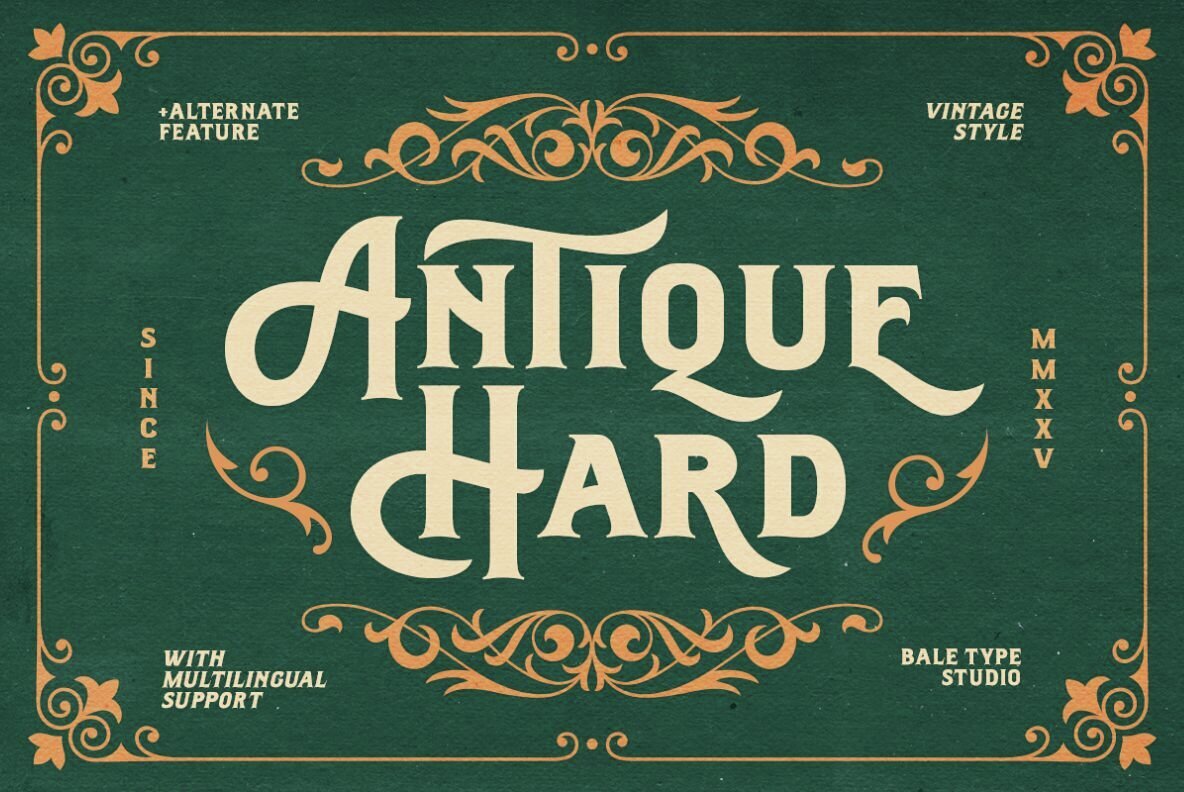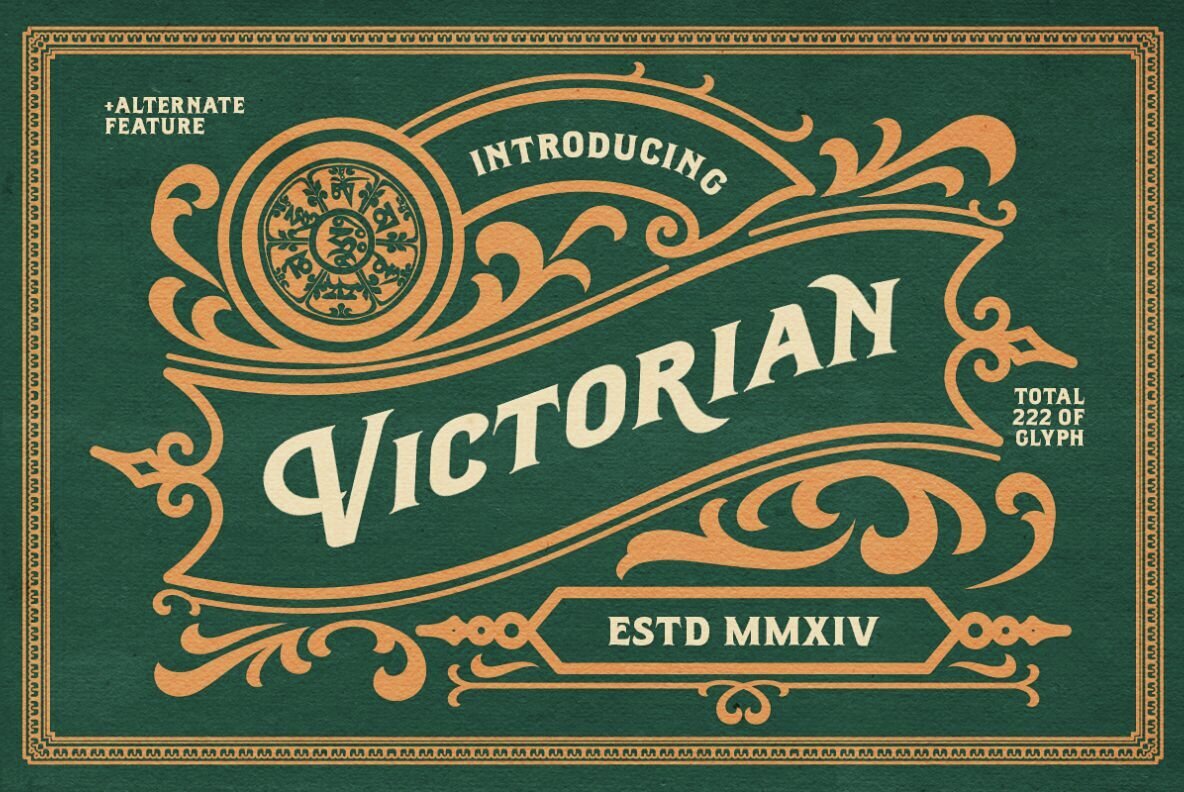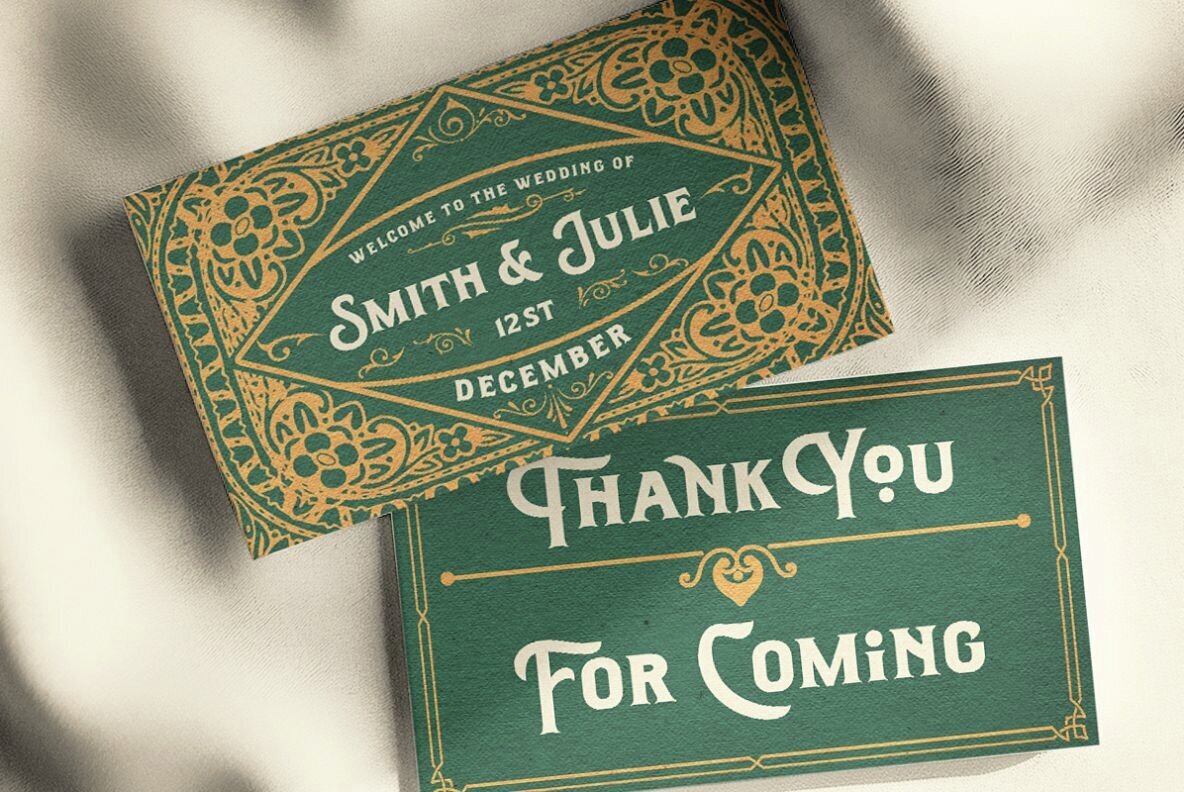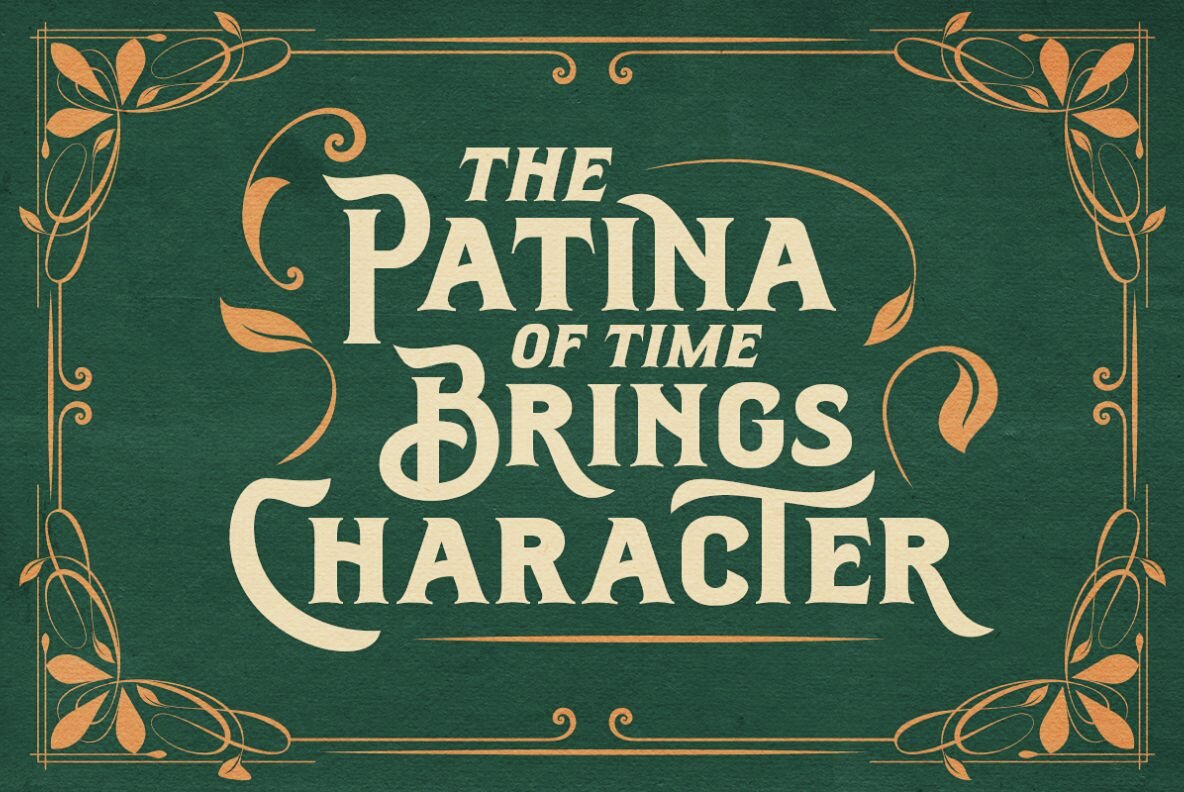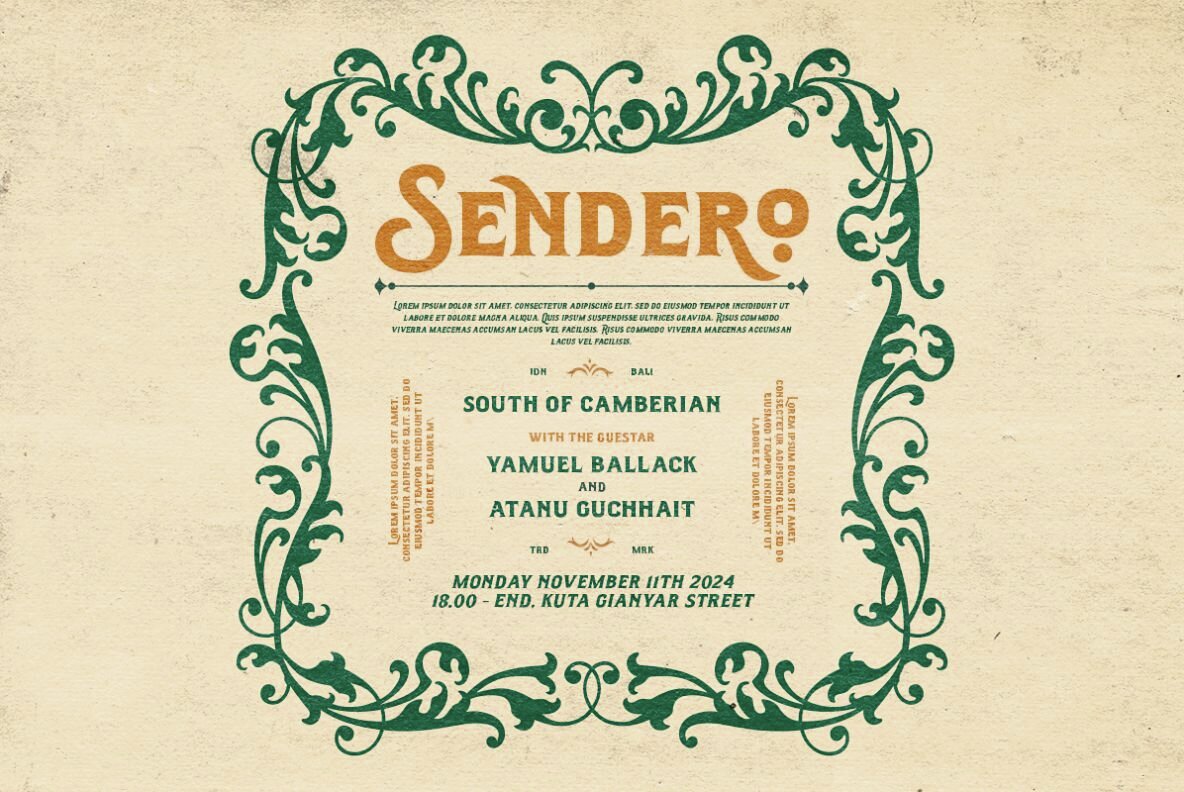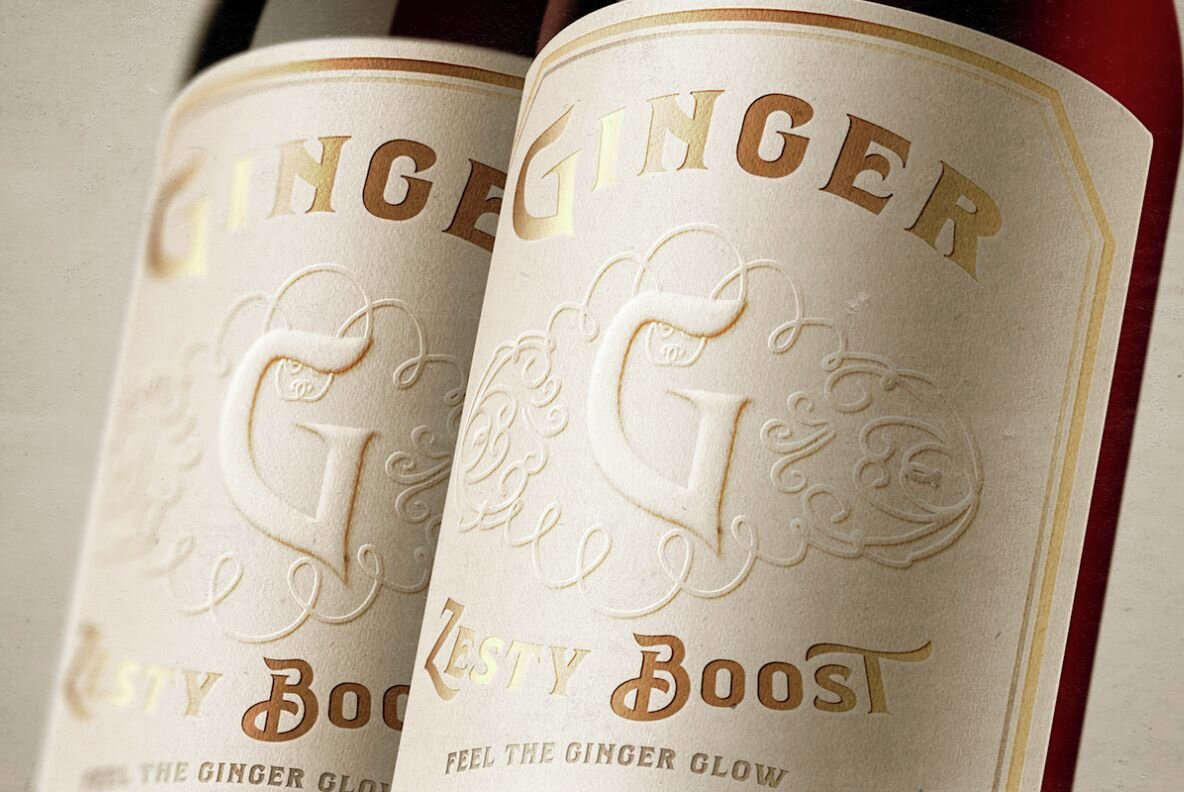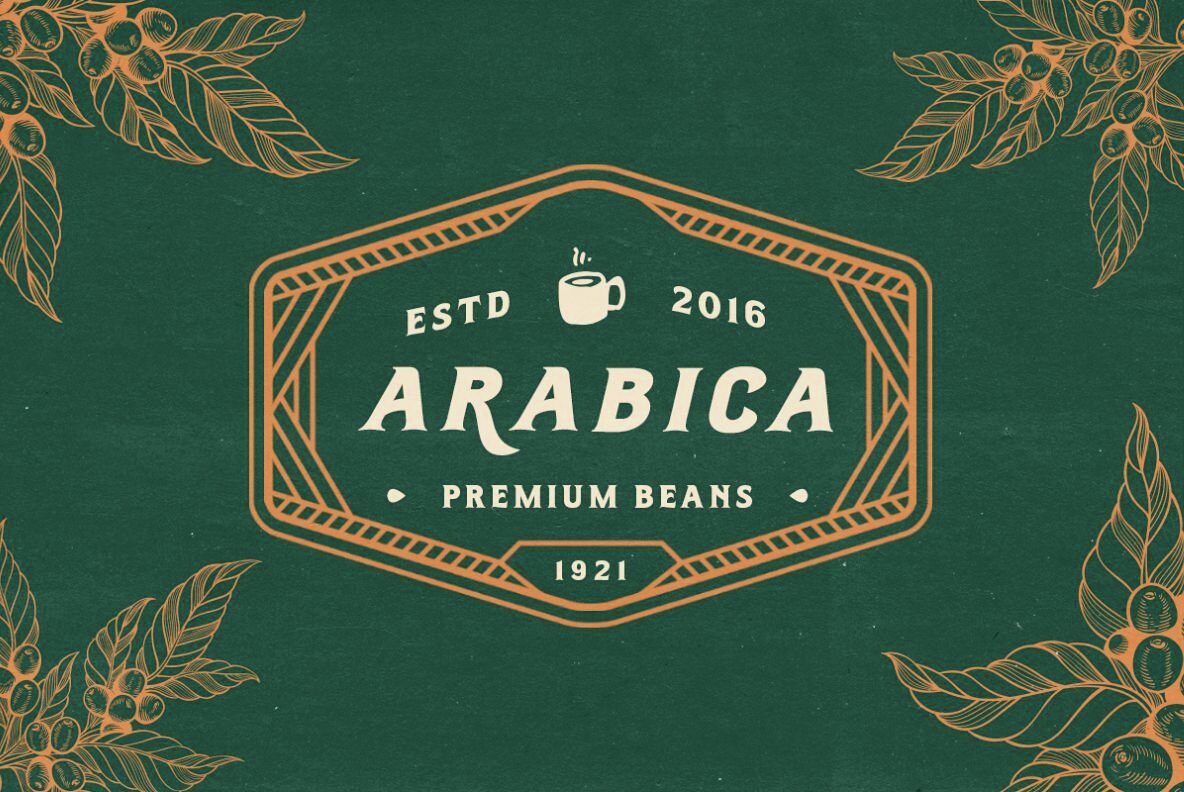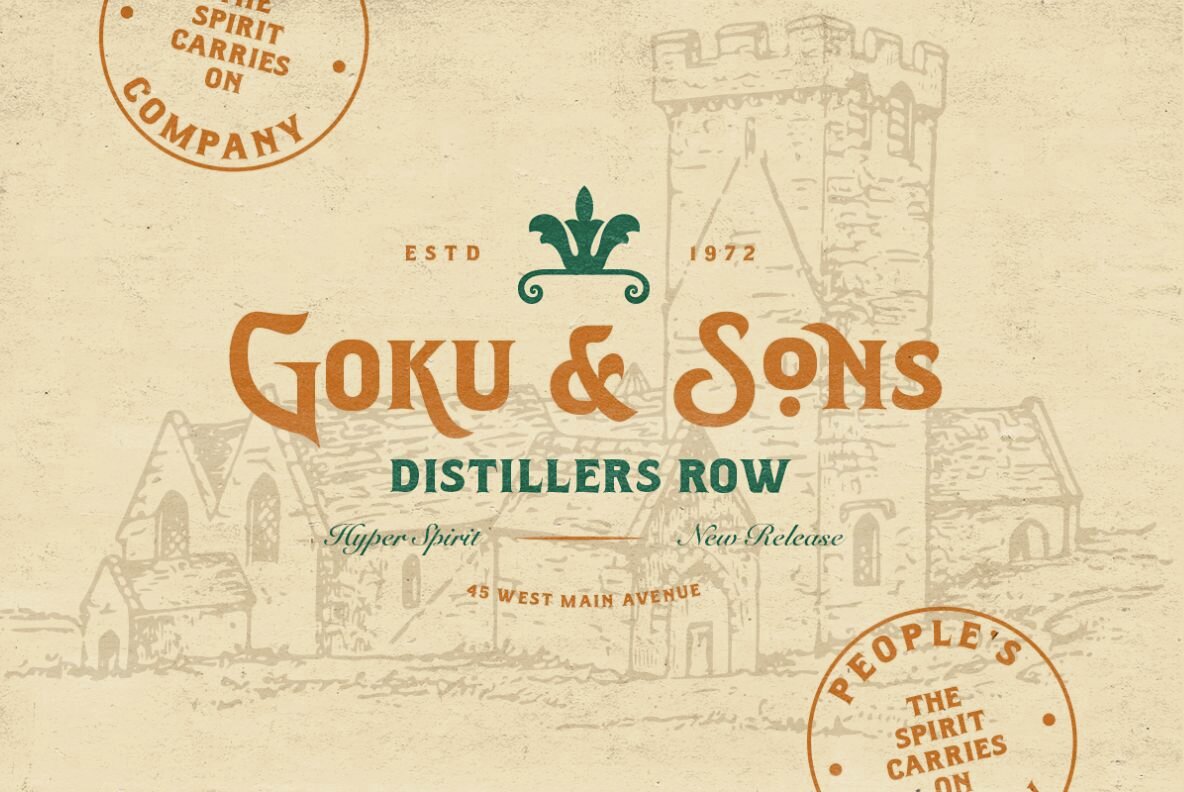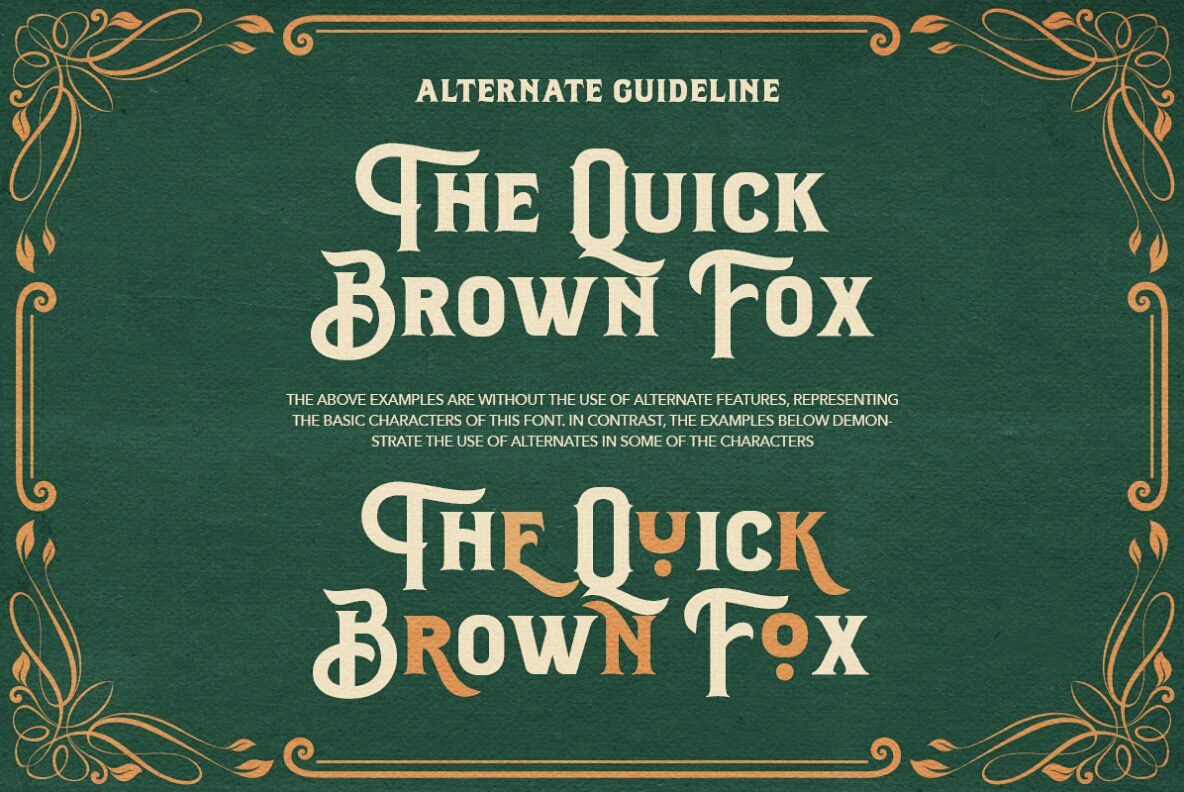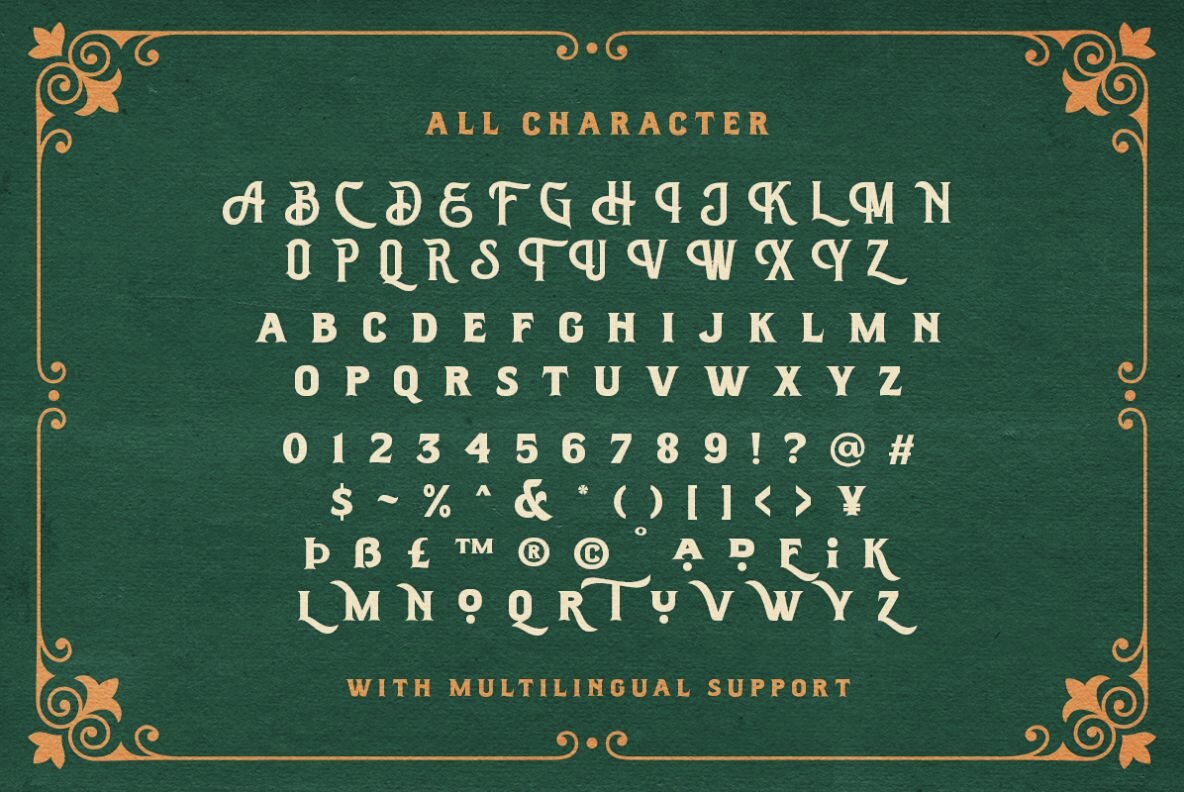
Antique Hard Font
Antique Hard Regular
Antique Hard Italic
Antique Hard is a bold typeface that brings together vintage inspiration and classic artistry, drawing from both sign painting and Victorian-era designs. Its strong, commanding presence and nostalgic charm make this font an excellent choice for projects that seek an old-school or Victorian aesthetic. Ideal for headlines, logotypes, invitations, and packaging, Antique Hard offers a unique touch of history and elegance.Antique Hard Typeface